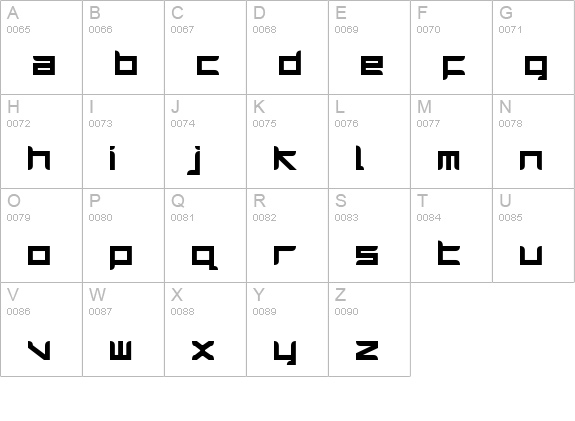
Harrier Bold is a strong, high-contrast variant in the Harrier typeface family \xE2\x80\x94 well suited to headlines, attention-grabbing titles, and strong calls-to-action.
Harrier Bold font, a captivating typeface that effortlessly combines elegance and boldness, is the perfect choice for anyone seeking to make a powerful statement. With its strong and confident letterforms, this font commands attention and exudes a sense of modernity. The Harrier Bold font stands out with its sleek and stylish design, making it ideal for a wide range of creative projects. Whether you're designing a bold logo, crafting eye-catching headlines, or creating impactful posters, this font will add a touch of sophistication and professionalism to your work. What's even better is that the Harrier Bold font is freely available to download at FontsMarket.com. This means that you can easily access and use this remarkable typeface without any limitations. Its availability at FontsMarket.com ensures that you can effortlessly integrate this font into your projects, without having to worry about any costs or restrictions. So, why wait? Unleash your creativity and make a lasting impression with the Harrier Bold font. Download it for free today at FontsMarket.com and take your design game to the next level.